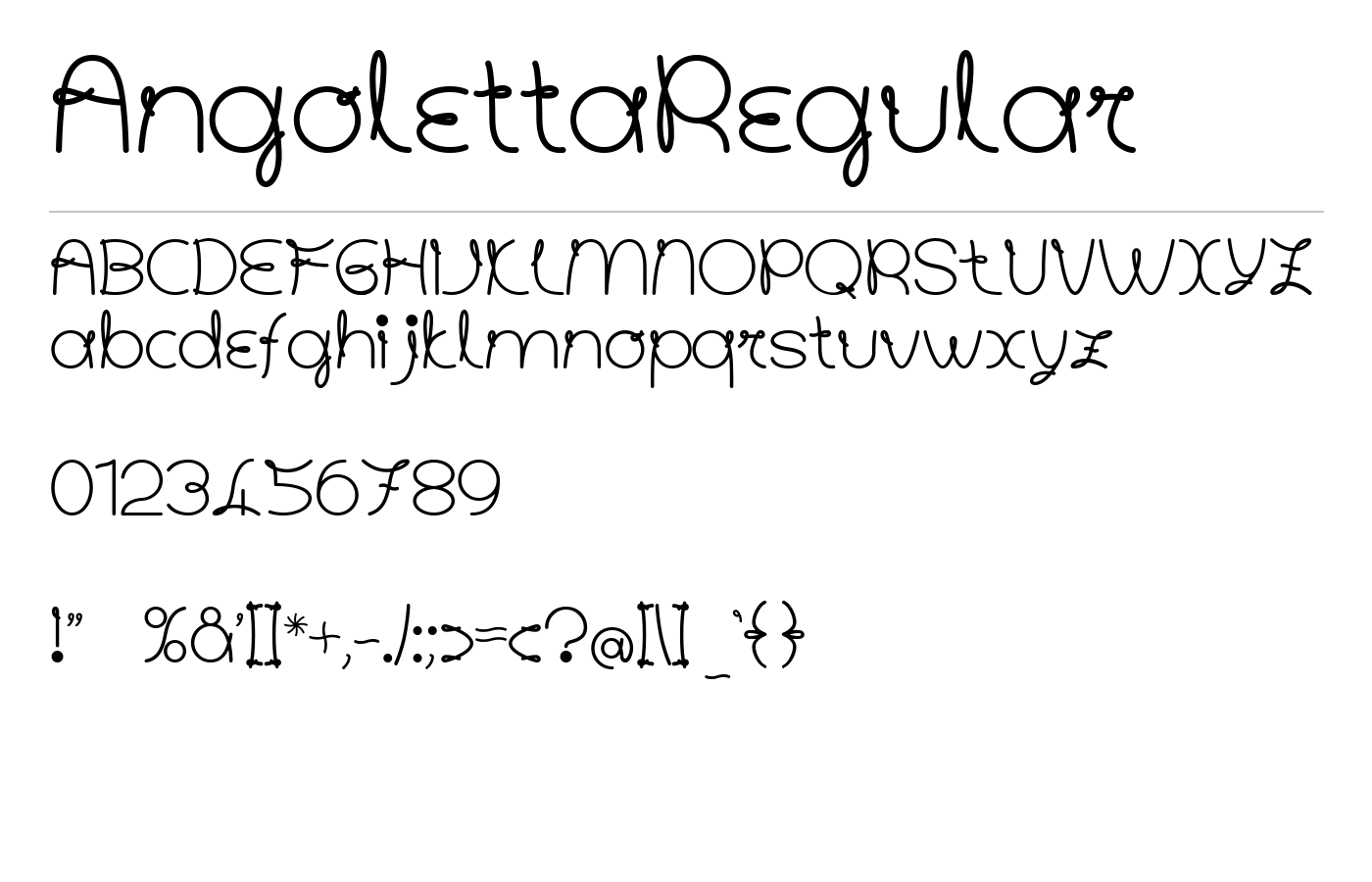
AngolettaRegular is a quirky, handwritten-style font featuring slender strokes with playful loops and rounded terminals that give it a cheerful, casual feel. Its narrow, airy letterforms with unique, curly details make it ideal for creative projects like children’s books, informal invitations, or whimsical branding. This font works best in display settings where its distinctive personality can shine without sacrificing readability.
AngolettaRegular Font
About AngolettaRegular Font